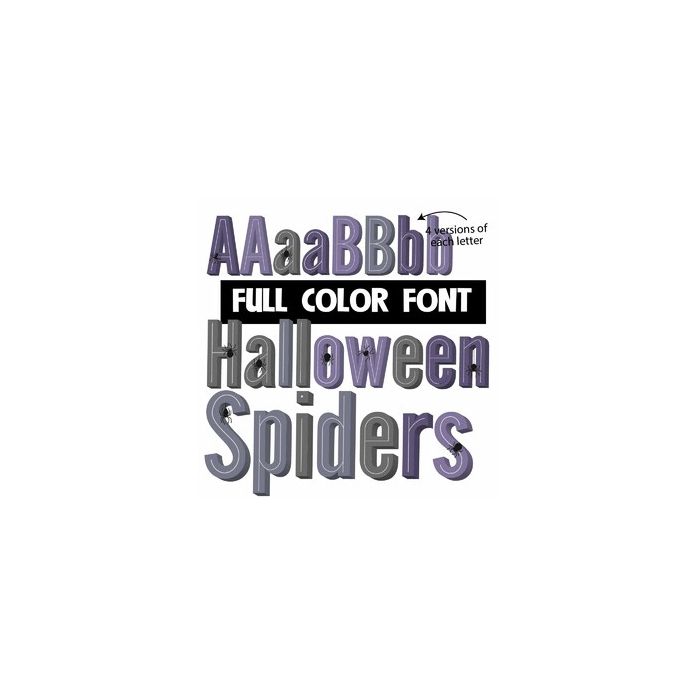
This full-color font features different shades of purple lettering and spiders throughout. There is a full upper and lowercase second set available through Silhouette's or your system's glyph map.